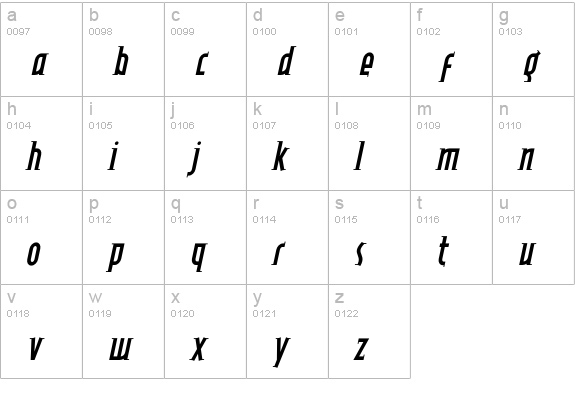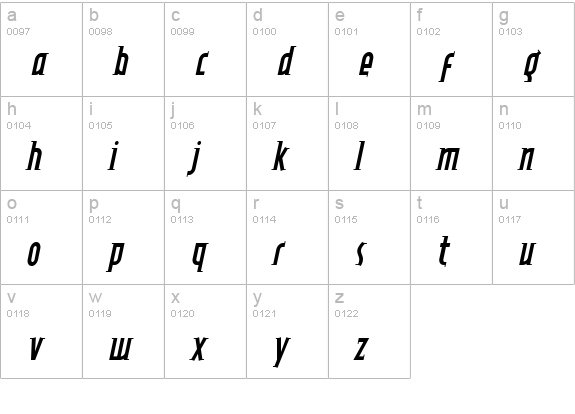
Konfactur-Two font is a versatile and modern typeface that strikes the perfect balance between elegance and readability. Its clean lines and sophisticated design make it suitable for a wide range of projects, from branding to editorial design. The font features a unique blend of sharp edges and soft curves, giving it a distinctive and memorable look. What sets Konfactur-Two font apart is that it is available for free download at FontsMarket.com. This means you can easily access this high-quality font without any cost, making it a valuable addition to your font collection. Whether you're a designer looking to add a touch of sophistication to your work or a business owner seeking a professional and polished look for your brand, Konfactur-Two font is the perfect choice. Download it today and elevate your designs with this stunning typeface.